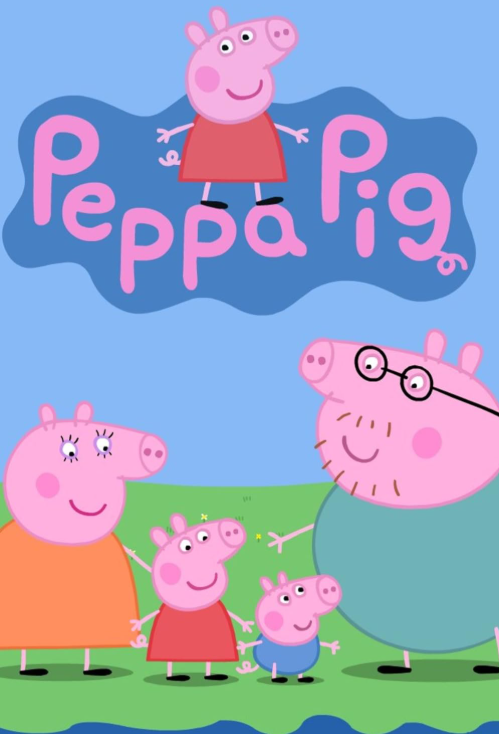
Peppa Pig Font stands out as one of the most notable typefaces in the children’s media space, having originally been adapted from the playful and bubbly lettering featured in the Peppa Pig animated television series. As with other aspects such as branding, entertainment, and creative projects, typography is equally important. Indeed, this typeface is characteristic of the happiness associated with childhood.
This typeface is widely used by designers and parents, content creators, etc. who want something different in their work. If you are organizing a Peppa Pig themed birthday party, designing social educational materials, making animated videos, or crafting Peppa Pig social media pages, the right font selection will certainly invoke all your ideas.
What is Peppa Pig Font?
The Peppa Pig Font is the font used on the Peppa Pig Show’s logo and other merchandising items. The font is not publically available since it is specially commissioned, but designers have crafted a number of other fonts that are inspired by it.
Features of Peppa Pig Font
The Peppa Pig Font stands out due to its unique characteristics, which make it perfect for children’s designs:
✔ Playful and Friendly – Rounded, hand-drawn style creates a warm and inviting look.
✔ Childlike Aesthetic – Designed to appeal to kids with its cartoonish appearance.
✔ Soft and Curved Lettering – The bubbly shapes add to its charm.
✔ Easy to Read – Maintains clarity despite its playful nature.
✔ Versatile Usage – Works well for branding, invitations, children’s books, and digital content.
Applications of Peppa Pig Font
Due to its fun and engaging design, the Peppa Pig Font is widely used in various creative projects:
🎉 Children’s Party Invitations & Decorations
Perfect for Peppa Pig birthday invitations, banners, and greeting cards.
📚 Educational Materials
Great for worksheets, flashcards, and storybooks for young learners.
🎥 YouTube & Social Media Content
Popular among content creators making Peppa Pig-themed videos or graphics.
🛍 Toys & Merchandise
Often seen on Peppa Pig-themed products, packaging, and promotional materials.
🚀 Branding & Logo Design
Used by businesses targeting children’s products, daycares, and kid-friendly services.
Conclusion: Peppa Pig Font
The Peppa Pig font is a merry and bright typeface which adds flares of creativity to any work. Even though the Peppa Pig font is exclusively used by the brand, designers can make use of similarly styled fonts for the same effect.
Be it Peppa Pig themed birthday party invitations, educational material or social media content, these font alternatives will let you harness the beauty of the much adored cartoon.